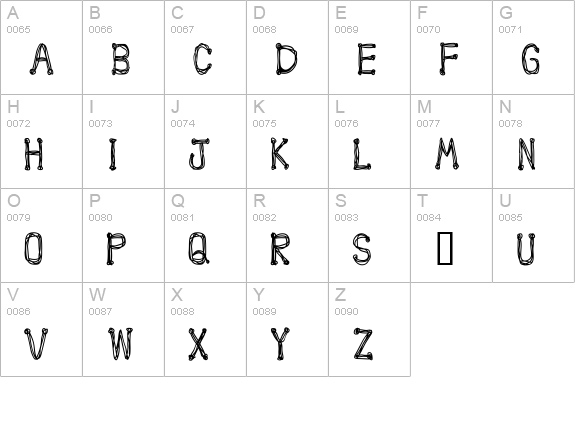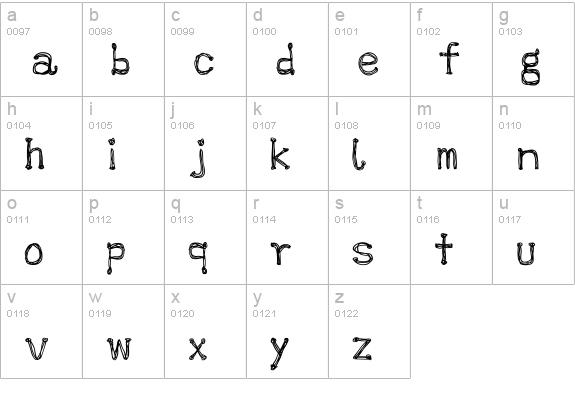
POP Font Details
Introducing POP font, a vibrant and eye-catching typeface that is sure to add a playful touch to your designs. With its bold and dynamic appearance, POP font is perfect for creating attention-grabbing headlines, posters, and branding materials. This versatile font exudes a sense of energy and fun, making it ideal for projects that require a modern and youthful aesthetic. Best of all, POP font is completely free to download at FontsMarket.com. Whether you're a designer looking to add a pop of color to your work or a creative individual in need of a fresh and exciting font, POP font is the perfect choice. Don't miss out on this fantastic opportunity to enhance your projects with this fantastic typeface. Download POP font today and let your creativity shine!